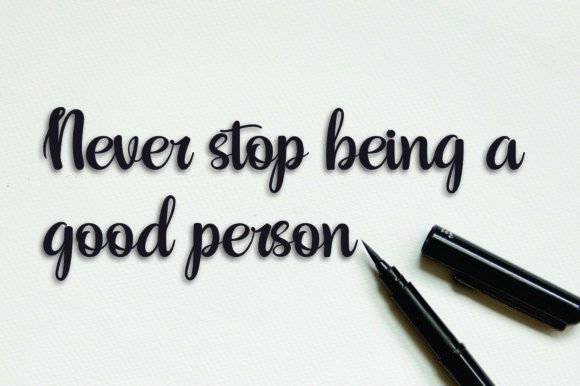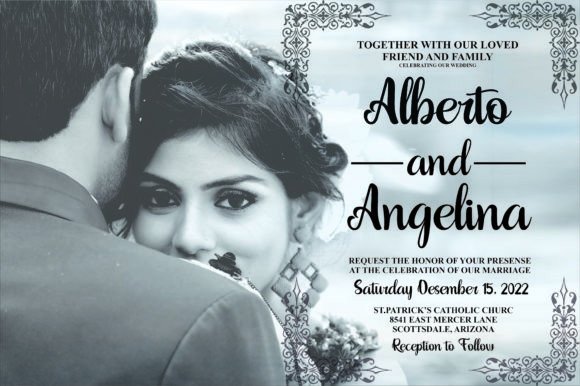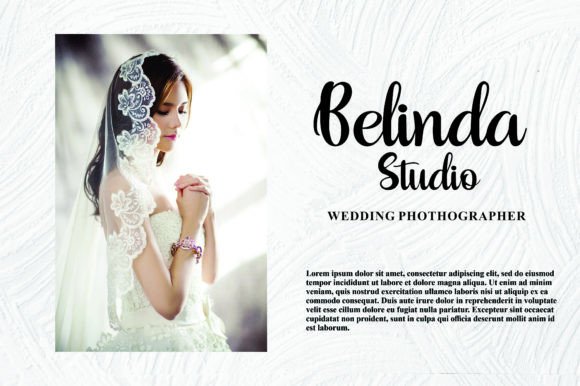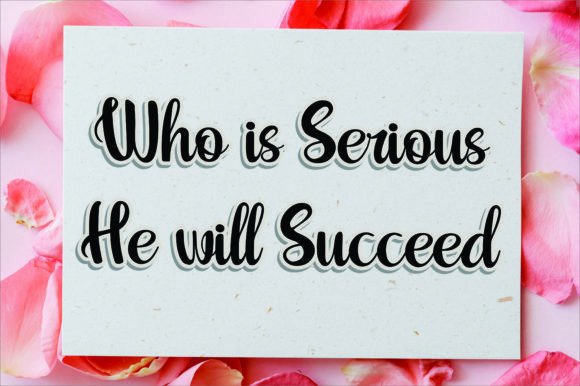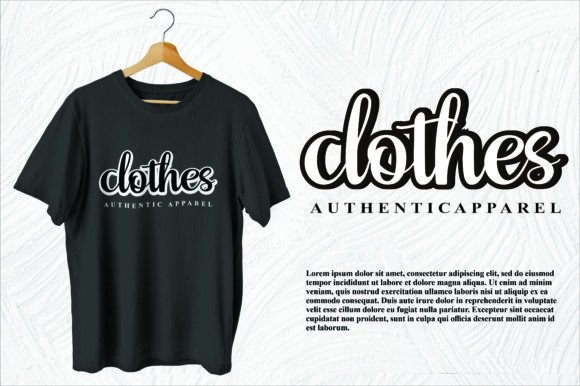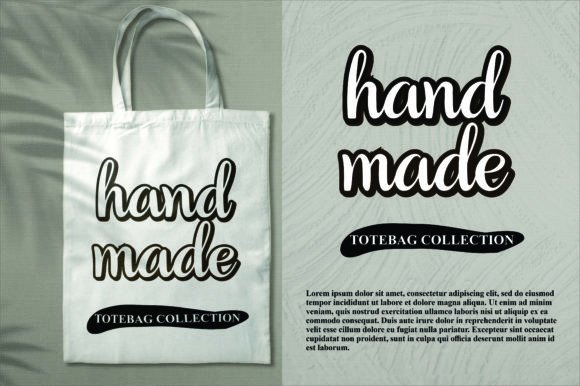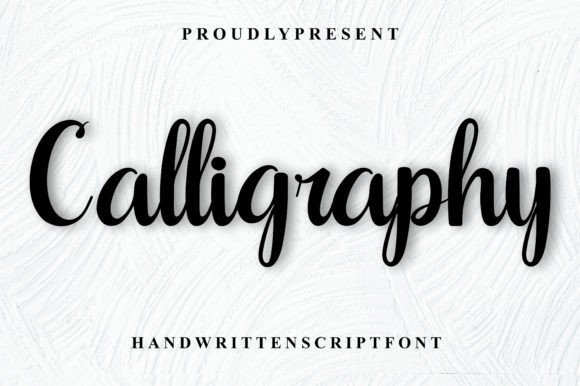
Unleash the Art of Elegant Typography
Have you ever stumbled upon a beautifully handwritten phrase that instantly sparks your creativity? Perhaps it was a quote from a favorite book, a message from a loved one, or a stunning advertisement that caught your eye. Whatever it was, you couldn’t help but feel drawn to the unique charm and character it possessed. This is precisely the kind of magic that the Calligraphy Font can bring to your projects.
This exquisite handwritten font is designed to evoke the classic calligraphic influences of the past while feeling refreshingly modern and contemporary. Its versatility makes it a valuable asset for designers, allowing them to add a touch of sophistication and elegance to their work. Whether you’re a seasoned pro or just starting out, the Calligraphy Font is sure to become a trusted favorite in your creative arsenal.
Key Features of Calligraphy Font
- Unique Characteristics: Calligraphy Font features elegant, cursive script with intricate details and flourishes, making it ideal for wedding invitations, certificates, and other formal documents.
Calligraphy Font Review
Overall, I’d say the Calligraphy Font is a solid choice for designers looking to add a touch of elegance to their projects. ✨ It’s perfect for invitations, wedding stationery, and other formal events where you want to make a statement.
Here are some things that really work well:
- Beautiful, flowing lines that evoke a sense of sophistication ✨
- Wide range of styles and variations to choose from, making it easy to find the perfect fit for your project
- Works well in both digital and print formats
- Can be quite ornate, which may not be suitable for all designs ⚠️
- Some characters may be difficult to read, especially at small font sizes ⚠️
- May not be the best choice for projects that require a lot of text
Overall, I’d give the Calligraphy Font 4 out of 5 stars. It’s a beautiful font that’s perfect for special occasions, but it’s not suitable for every project. With a little care and attention, it can really make your designs stand out.
Calligraphy fonts are ideal for:
1. Wedding invitations and stationery
2. Luxury branding and packaging
3. Handwritten-style titles and headings
4. Artistic and creative projects